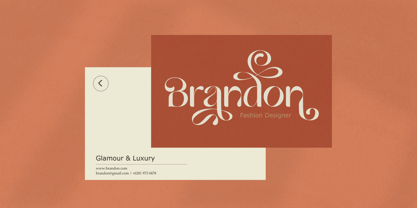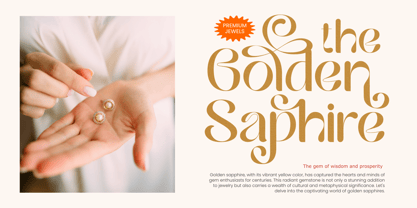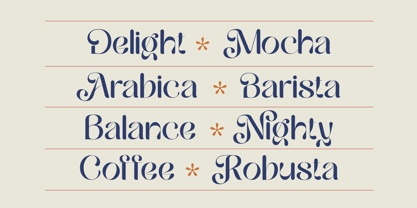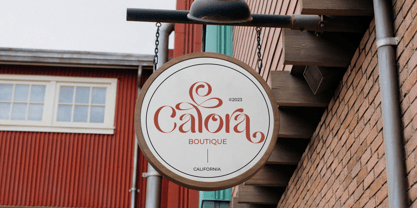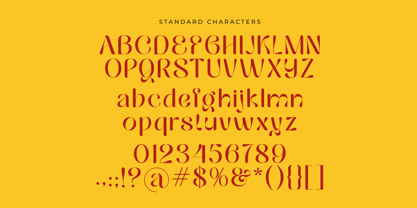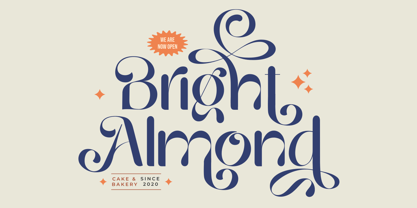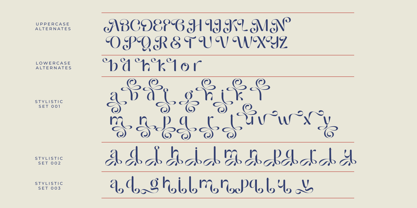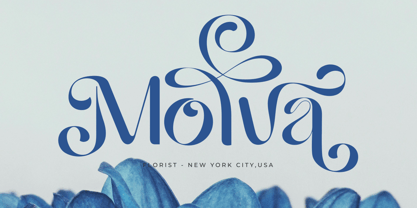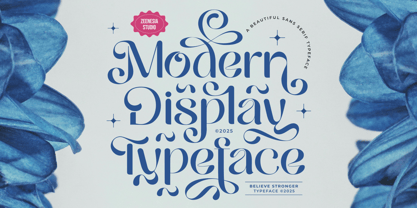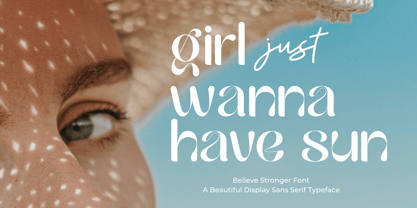
Believe Stronger
by Zeenesia Studio
The Believe Stronger Font Family was designed by Doni Purwoko and published by Zeenesia Studio. Believe Stronger contains 1 styles. More about this family
Believe Stronger – A Modern Sans Serif Typeface
Believe Stronger is a beautifully crafted sans serif font that blends clean modern lines with graceful curves, creating a timeless and versatile typeface. Designed to elevate any creative project, this font comes with stylish alternates and elegant ligatures that allow you to customize your typography and add a unique personal touch.
Perfect for branding, editorial design, packaging, logos, and social media graphics, Believe Stronger offers both simplicity and sophistication. Its balanced letterforms make it ideal for both headlines and body text, while the alternate characters open endless possibilities for creative layouts.
Bring strength and beauty to your designs with Believe Stronger – where modern elegance meets expressive versatility.